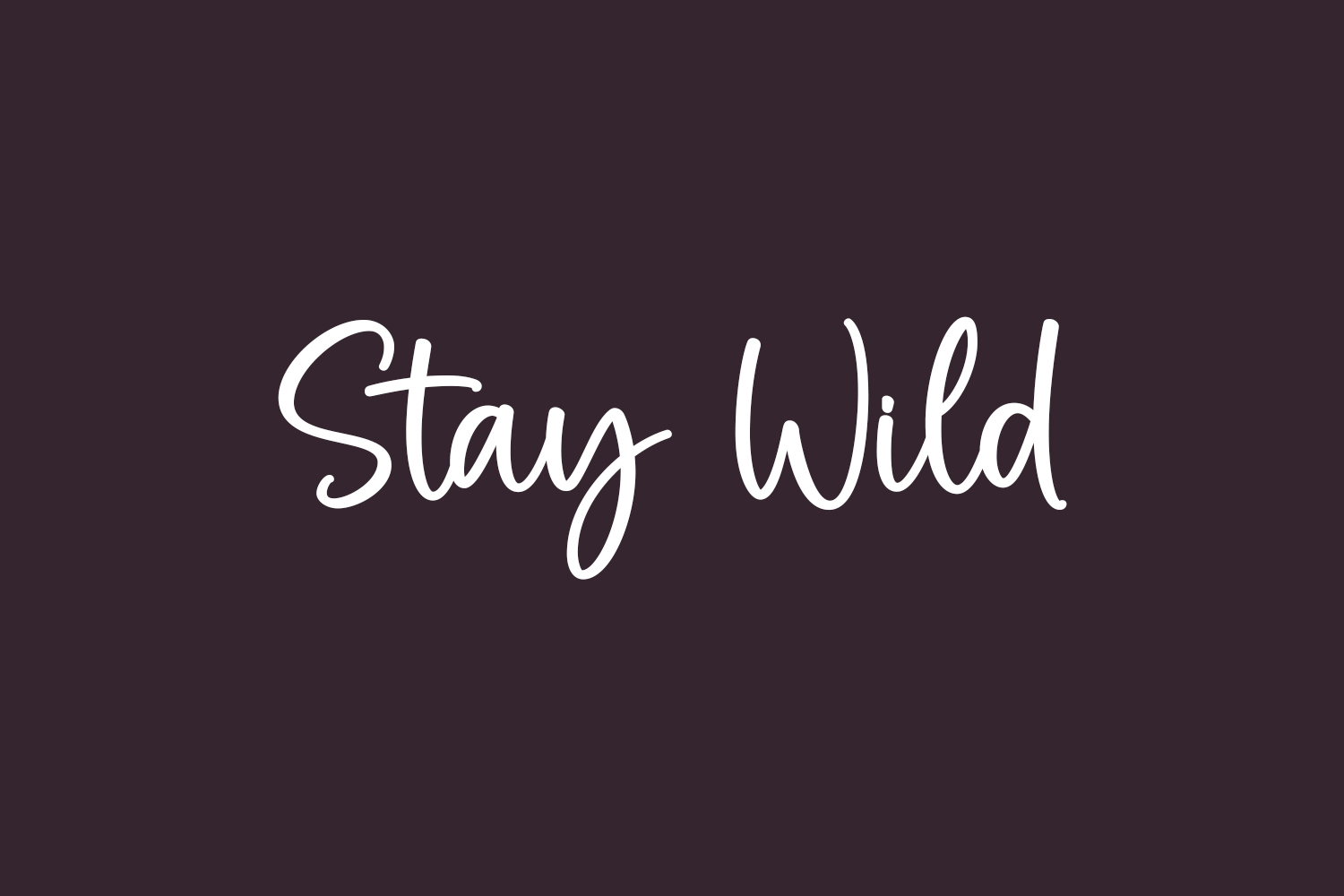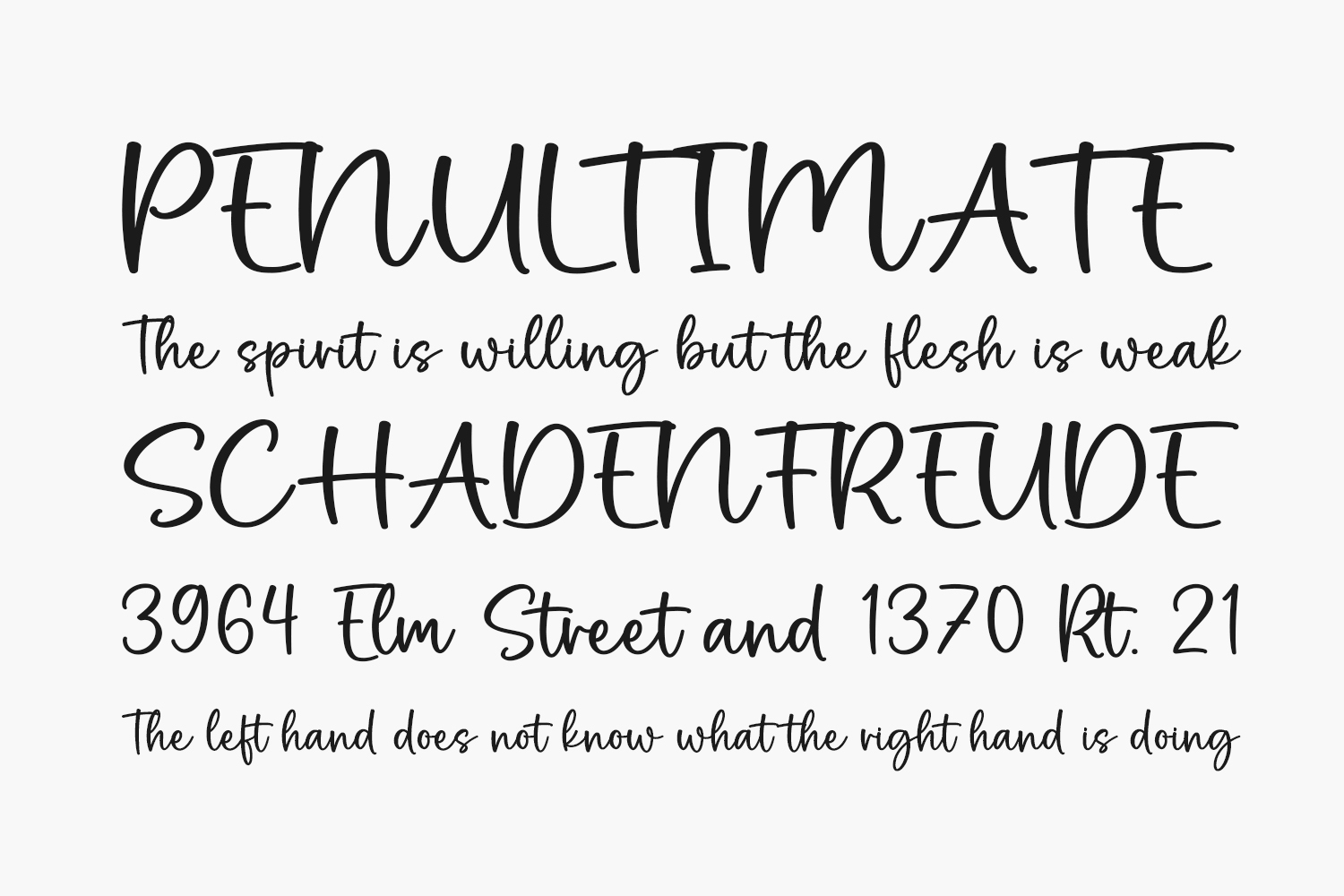
Stay Wild Free Font embodies delicacy, elegance, and fluidity in a handwritten font. Featuring beautifully balanced characters, this font seamlessly complements a diverse range of designs. Stay Wild Free Font is free for personal use only. Please purchase the full version for commercial use.
Designed by Graphix Line Studio